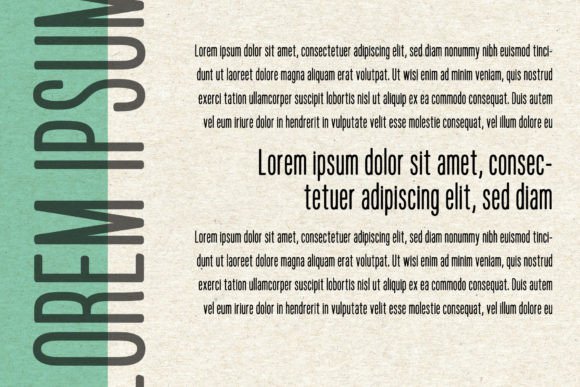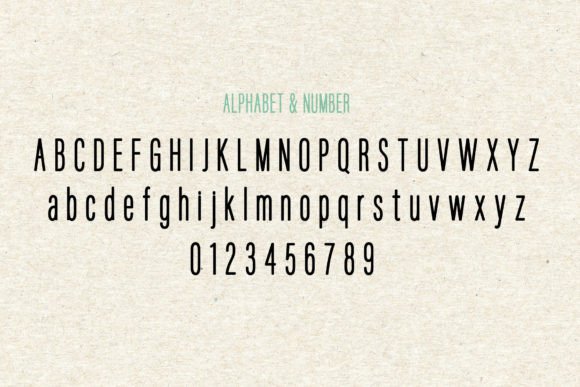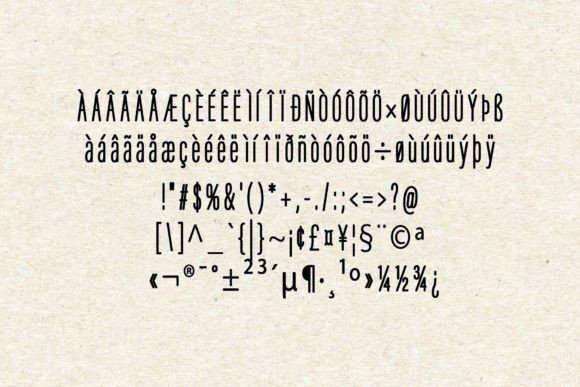
Introduction to Roundo Font
Remember that moment when you’re working on a creative project and you just can’t seem to find the perfect font to bring it all together? You scroll through font libraries, searching for that one special font that will elevate your design from good to great. For designers, finding the right font can be a game-changer – it’s what sets your work apart and makes it truly unforgettable.
That’s where the Roundo Font comes in. This modern sans serif is designed to complement every project you’re working on, from beautiful headings to gorgeous invitations, stunning logos, and so much more. With its high-quality design and transparent background, the Roundo Font is the perfect design resource for any creative project. And the best part? It’s available for free download, making it accessible to designers of all levels.
Key Features of Roundo Font
- High-quality design resource for creative projects: The Roundo Font is a perfect addition to any project requiring a unique and stylish font.
- Transparent background: The Roundo Font features a transparent background, allowing users to easily integrate it into their designs.
- Resolution: The Roundo Font is designed at a high resolution of 300 DPI, ensuring that it remains crisp and clear in various design contexts.
- Unique characteristics: The Roundo Font features a unique, rounded design that sets it apart from other fonts, making it an ideal choice for creative projects.
Honest Review: Roundo Font
I recently stumbled upon the Roundo Font while searching for a design resource to enhance a creative project. As a designer, I’m always on the lookout for high-quality fonts that can elevate my work.
- Rounded shapes that add a touch of sophistication to any design
- High-quality vector format, suitable for large-scale designs
- Transparent background option, allowing for seamless integration with any background
- Limited font styles available, which may not be suitable for complex design projects
- May not be the best choice for projects requiring a bold, sans-serif font
Overall, the Roundo Font is a solid addition to any designer’s toolkit. Its unique rounded shapes and high-quality design make it an excellent choice for creative projects. While it may have some limitations, I believe it’s a great resource for designers looking for a stylish and versatile font.
Tips for Getting the Most Out of Roundo Font
For the best results, use the Roundo Font with a transparent background. This will allow you to easily place your text over images or other design elements. You can also experiment with different font sizes and styles to create a unique look.
Common Use Cases for Roundo Font
The Roundo Font is versatile and can be used in a variety of creative projects, including logos, brochures, and social media graphics. Its high-quality design makes it an excellent choice for professional designs, while its free download option makes it accessible to designers of all levels.
What is the recommended resolution for using the Roundo Font in high-quality designs?
What resolution is recommended for high-quality designs using the Roundo Font?
For high-quality designs, we recommend using the Roundo Font at a minimum resolution of 300 DPI (dots per inch). This will ensure that the font appears crisp and clear, even when scaled up or down. If you’re working on a design that requires a high level of detail, such as a logo or icon, you may want to use a higher resolution, such as 600 DPI or higher.